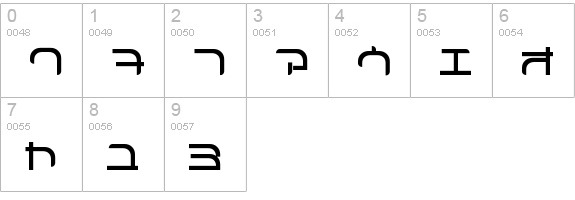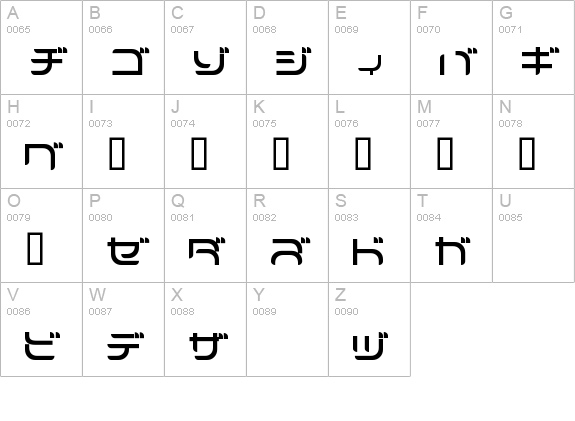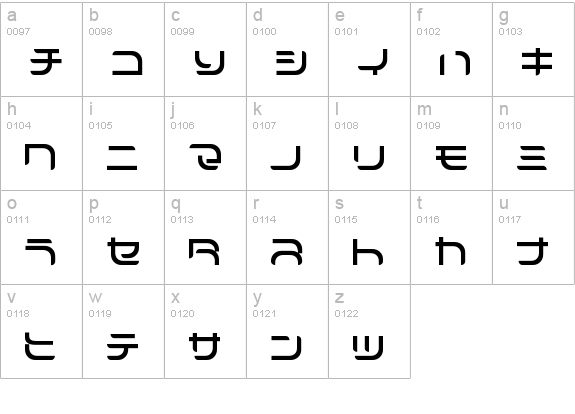
Hyperion Kana kat Font Details
Introducing Hyperion Kana kat font, a beautifully crafted typeface that combines elegance with modernity. This stunning font features intricate details and unique design elements that make it perfect for a wide range of creative projects. Whether you're looking to add a touch of sophistication to your branding, print materials, or digital designs, Hyperion Kana kat font is sure to make a lasting impression. And the best part? Hyperion Kana kat font is completely free to download at FontsMarket.com. That's right, you can elevate your projects with this exceptional font without spending a dime. So why wait? Head over to FontsMarket.com now and enhance your designs with the exquisite Hyperion Kana kat font.